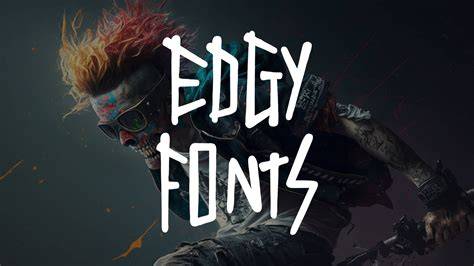
Edgy Fonts - The Future Of Typography
We live in a digital world and the way we communicate is constantly changing. As technology advances, so does the typography that we use to communicate. In 2021, edgy fonts have become the latest trend in typography, as they provide a unique, modern look that sets them apart from traditional font styles. Edgy fonts can be used to add a touch of attitude and personality to any project, whether it be a website, a poster or even an email. In this article, we will discuss what edgy fonts are and how they can be used to create a unique and stylish look.
What Are Edgy Fonts?
Edgy fonts are a type of font that has an angular, modern look. They are often used to create a more unique and stylish look than traditional fonts. The edges of the letters give the font an edgy feel, which can be used to add a bit of attitude and personality to any project. Edgy fonts often have sharp edges and are often used in combination with other font styles, such as bold and italic, to create an even more unique look. They can also be used to emphasize certain words, phrases or sentences.
Examples of Edgy Fonts
There are many different examples of edgy fonts available. Some popular examples include "Futura", "Lato" and "Courier". These fonts all have a modern, edgy look that can be used to create a unique and stylish look. Other examples include "Roboto", "Raleway" and "Source Sans Pro", all of which have sharp edges and a modern look that can be used to create a unique style.
How to Use Edgy Fonts
Edgy fonts can be used to create a unique and stylish look for any project. The key is to use the font in combination with other font styles, such as bold and italic, to create an even more unique look. Additionally, edgy fonts can be used to emphasize certain words, phrases or sentences. For example, if you wanted to emphasize a particular sentence, you could use an edgy font to make it stand out from the rest of the text.
Edgy fonts are a great way to create a unique and stylish look for any project. They provide a modern, edgy look that can be used to add a bit of attitude and personality to any project. Additionally, they can be used in combination with other font styles, such as bold and italic, to create an even more unique look. Lastly, they can be used to emphasize certain words, phrases or sentences. With edgy fonts, you can create a unique and stylish look that will make any project stand out.